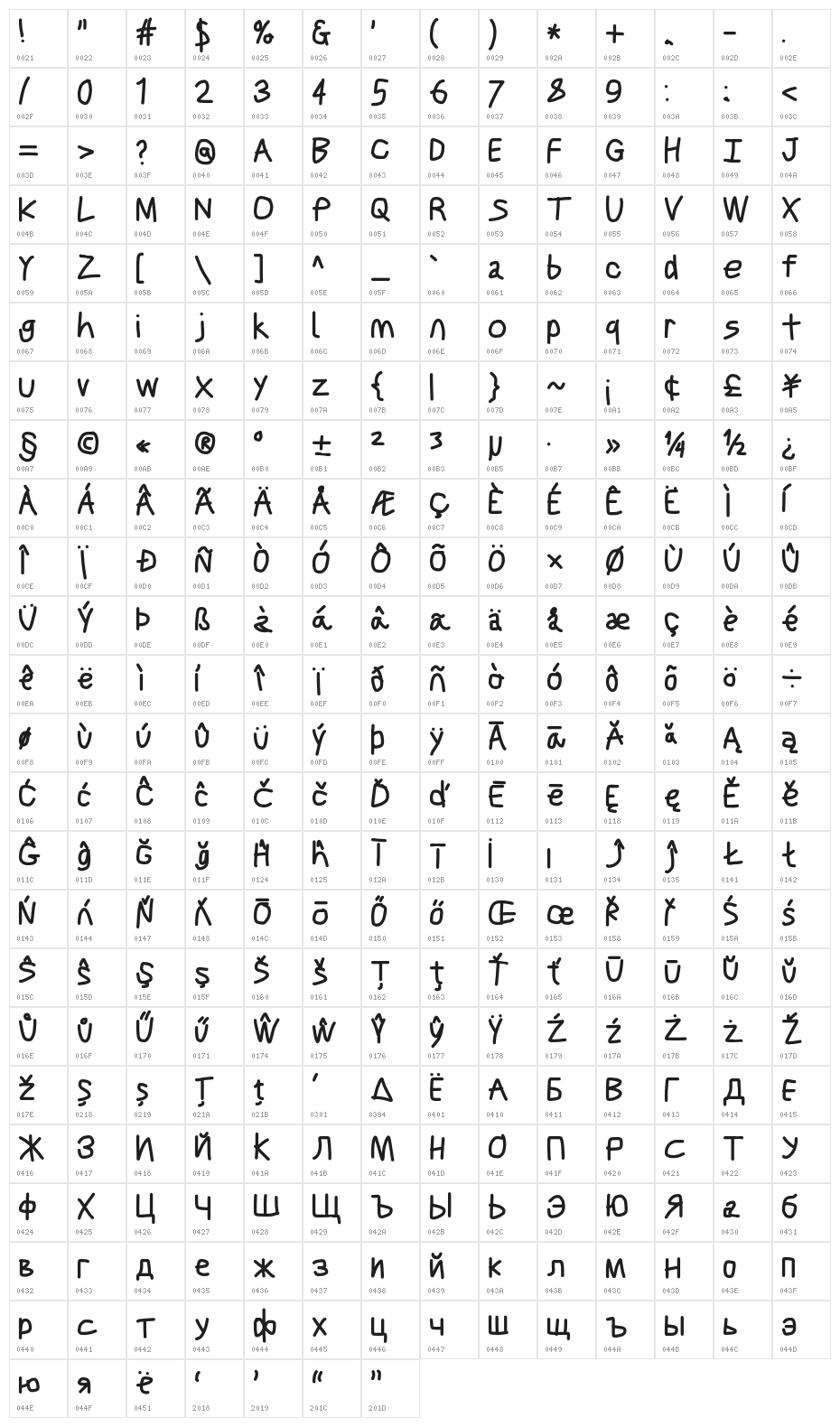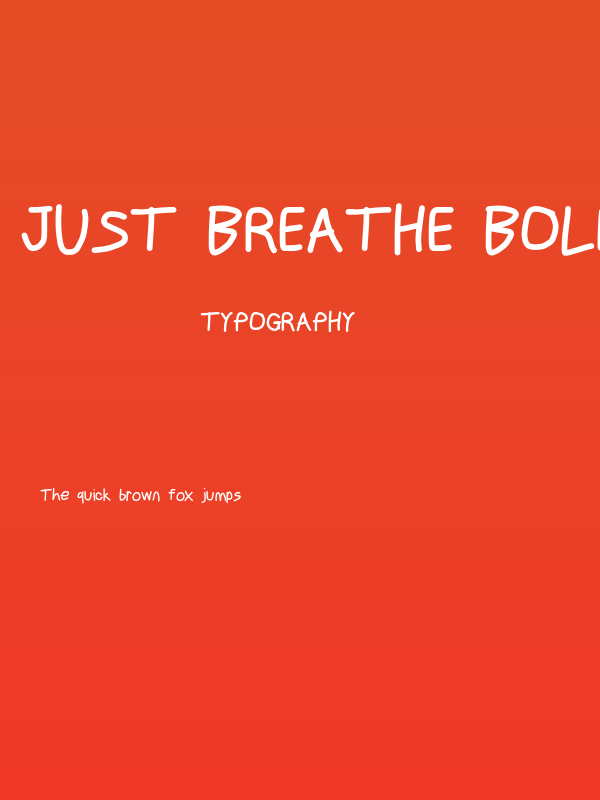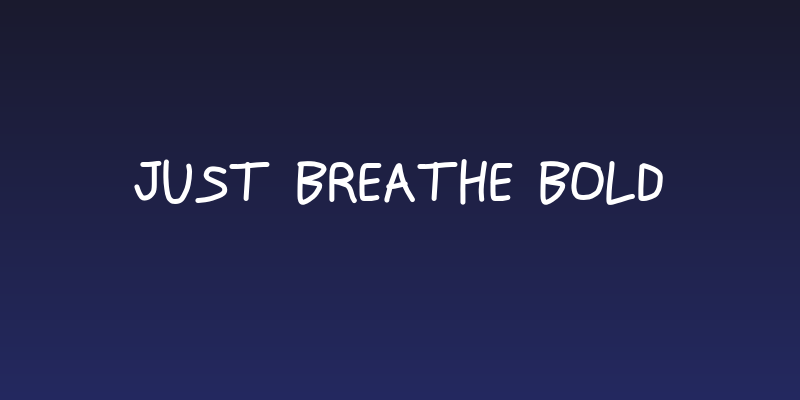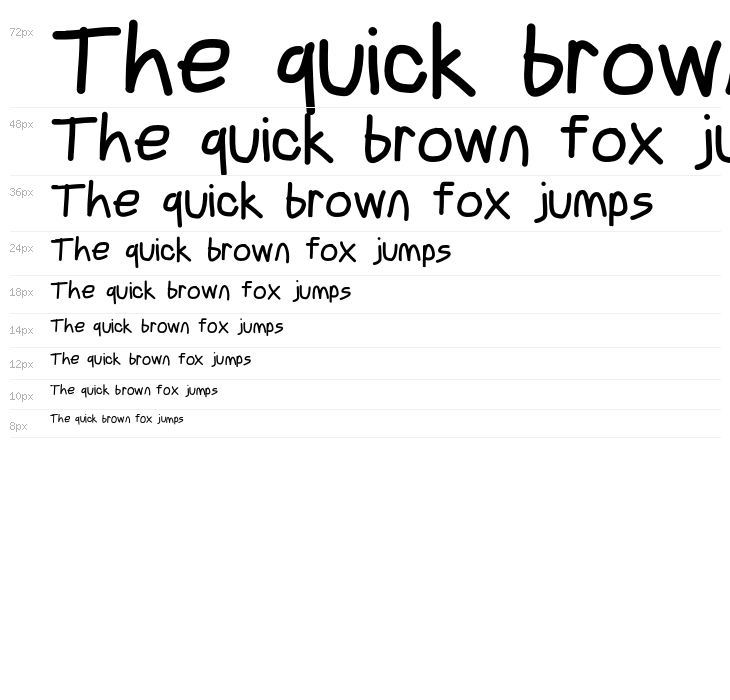
Just Breathe Bold Font
Just Breathe Bold Description
This font features a playful and casual handwritten style, characterized by its bold and rounded letterforms. The strokes are consistent in width, giving it a uniform appearance that enhances readability. The letters are slightly slanted, adding a dynamic and informal touch. The font includes both uppercase and lowercase letters, numerals, and a variety of special characters, making it versatile for different uses. Its friendly and approachable design makes it suitable for projects that aim to convey warmth and creativity.
| Proposed Projects | Ideal for children's books, greeting cards, casual branding, and social media graphics. |